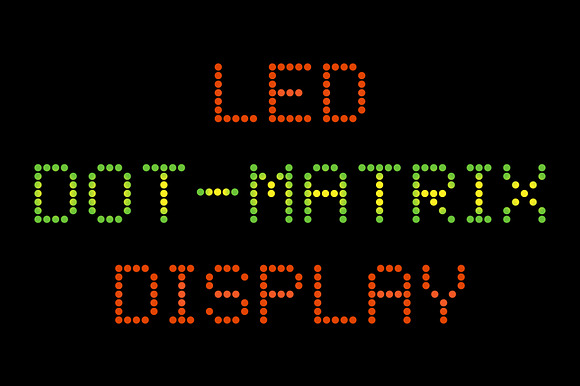
LED Dot-Matrix Display Font
Why LED Dot-Matrix Display Font is worth a look
LED Dot-Matrix Display Font by Krafti Lab fits naturally into Branding, posters, packaging, typography.